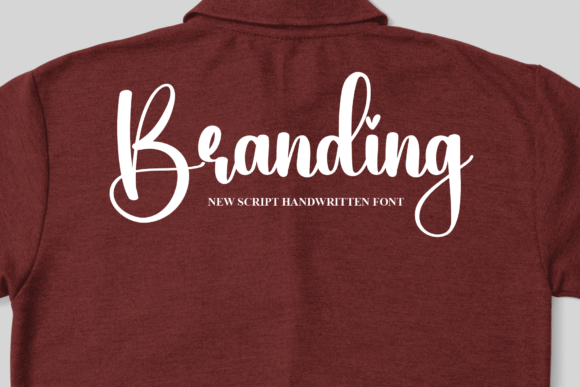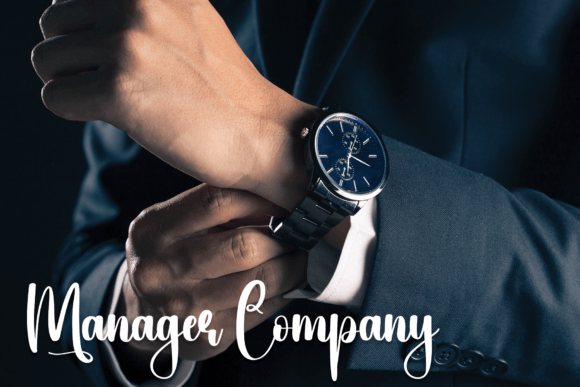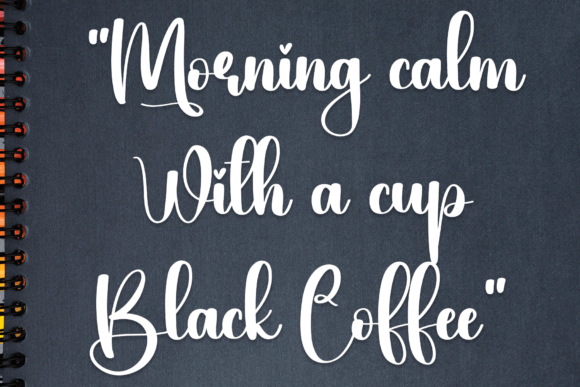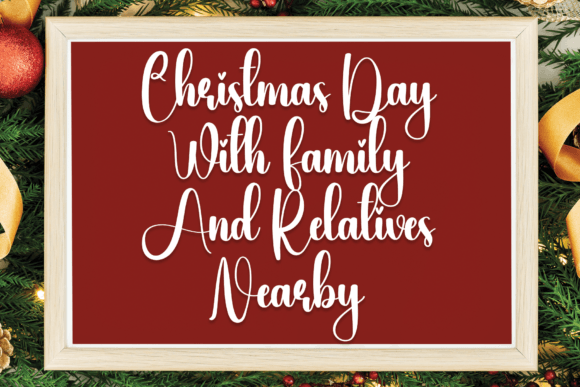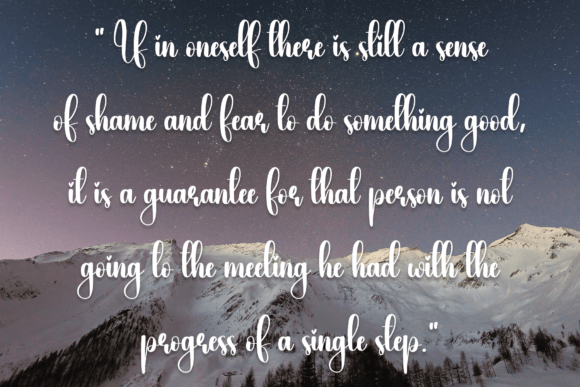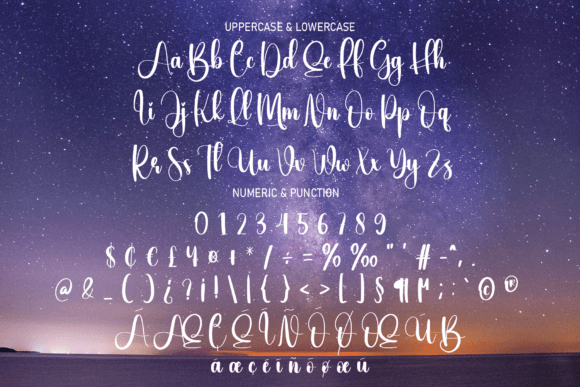
Introduction to Light Moon Font
Remember the moment when you first saw a handwritten note from a loved one, and it instantly warmed your heart? The imperfections, the uniqueness, the personality behind each stroke of the pen – that’s the magic of handwriting. Now, imagine having that same magic at your fingertips, without the need for a pen or paper. Welcome to the world of Light Moon Font, a game-changing design resource that brings the essence of handwriting to your creative projects.
Whether you’re a seasoned designer or a beginner, Light Moon Font is a valuable addition to your toolkit. With its high-quality, customizable letters, you can add a personal touch to any project, from wedding invitations to social media post logos. The best part? You can download it for free, and use it with a transparent background, giving you the flexibility to design with ease.
Key Features of Light Moon Font
- Unique, hand-drawn design with a dreamy and ethereal feel, perfect for creative projects.
- High-quality design resource, suitable for a wide range of applications, from print to digital media.
- Includes a range of characters, including uppercase and lowercase letters, numbers, and punctuation marks, making it a versatile font for creative projects.
- Designed with a high resolution (300 DPI) for crisp and clear rendering, suitable for use in various mediums.
- Ideal for designers looking for a unique and creative font to enhance their designs and add a touch of elegance and sophistication.
Honest Review: Light Moon Font
I recently stumbled upon the Light Moon Font while searching for a free download to enhance a creative project. I must say, it’s been a game-changer! ✨ The font’s unique, dreamy quality is perfect for anything from invitations to social media graphics.
One of the standout features of the Light Moon Font is its transparent background, which makes it incredibly versatile for use on any design resource. Whether you’re working on a high-quality print project or a digital display, this font is sure to add a touch of elegance.
Here are some of the things that work well with the Light Moon Font:
- Unique and dreamy aesthetic ✨
- High-quality design suitable for print or digital use
- Limited font sizes and styles available ⚠️
- No comprehensive documentation or tutorials
Overall, I’m thoroughly impressed with the Light Moon Font. While it may not be perfect, its strengths far outweigh its limitations. If you’re looking for a high-quality design resource to elevate your creative project, I highly recommend giving the Light Moon Font a try!
Light Moon Font is a versatile font that can be used in a variety of creative projects, including logos, business cards, and brochures. It is also a great choice for use in digital design, such as websites and social media graphics.